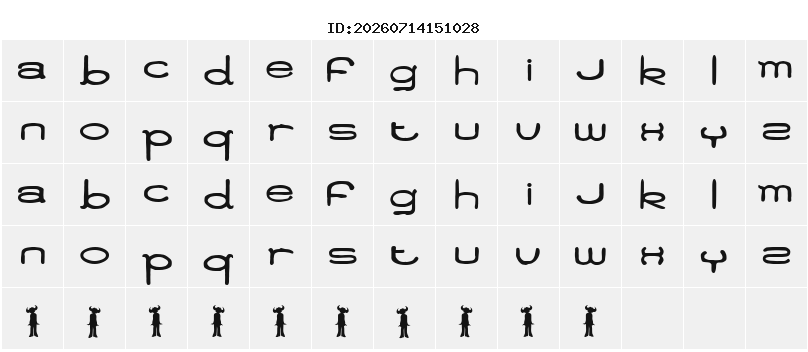
Jamiro Preview
• Font Name: Jamiro
• Full Font Name: Jamiro
• PostScript Name: Jamiro
About Jamiro.ttf
Jamiro.ttf is a modern, elegant sans-serif font designed for ultimate readability and visual harmony. Perfect for branding, headlines, web design, and print materials.